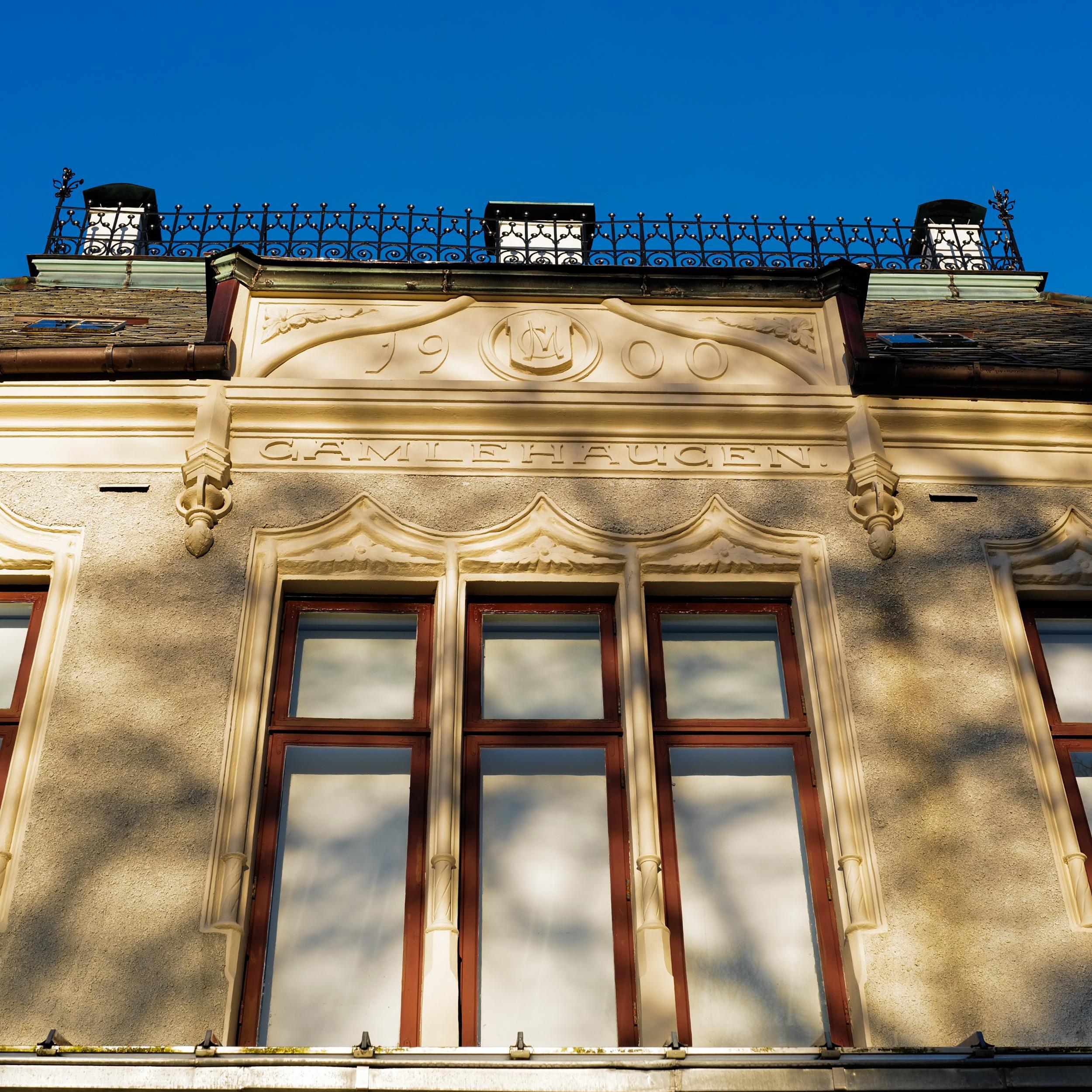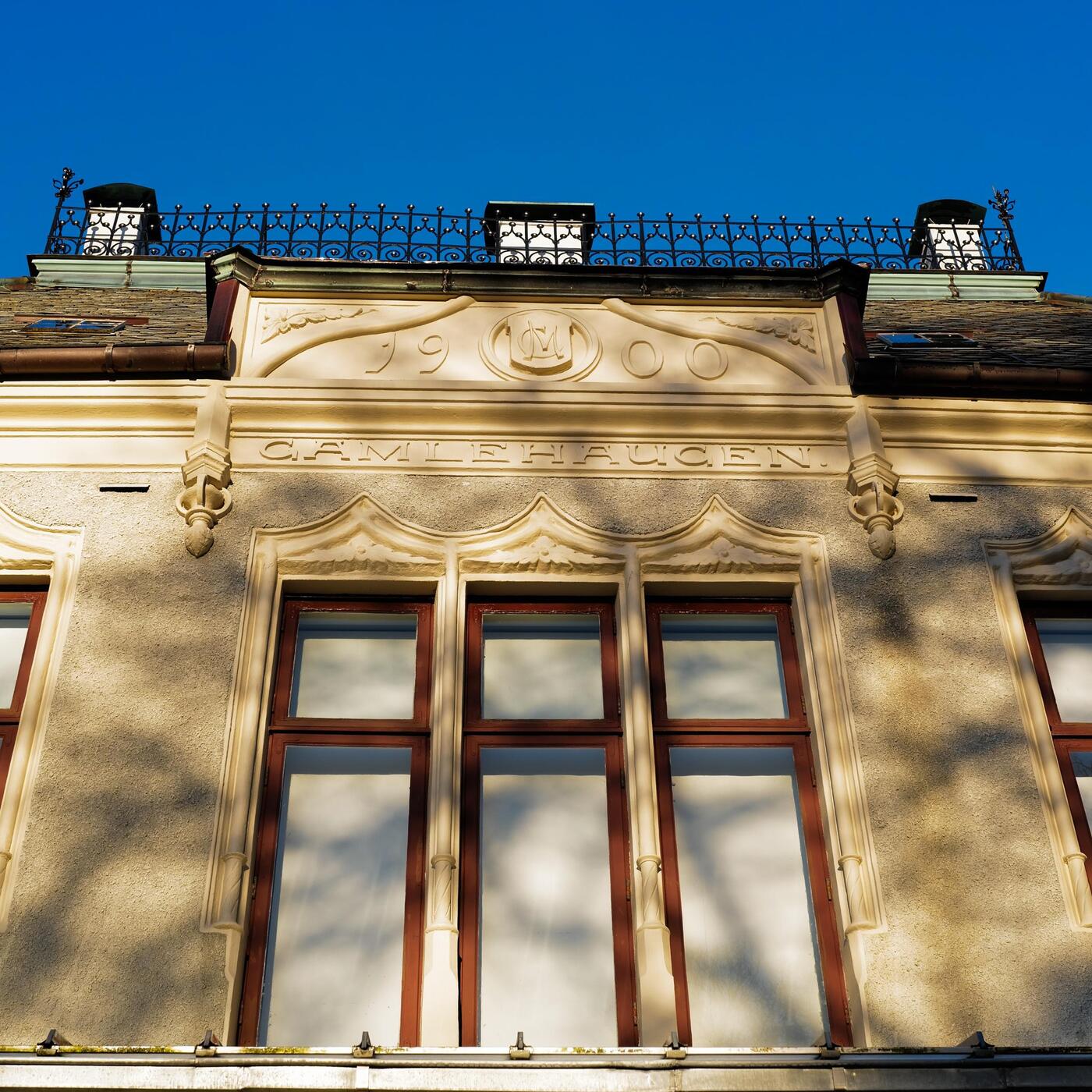
I'm looking for a typeface similar to one found on a castle in Bergen, Norway
Hi. I'm currently working on a book project about Gamlehaugen, an Arts&Crafts/Art Nouveau-castle, situated just outside Bergen, Norway. Today Gamlehaugen is the King’s official residence in Bergen, but it was originally built for shipowner and statesman Christian Michelsen around 1900. Gamlehaugen was designed in 1899 by the architect Jens Zetlitz Monrad Kielland, who was educated in Germany and influenced by late medieval architecture. I'm searching for a typeface similar to the one used on the castle itself. I know the pictures aren't amazing, but this is what I've got.